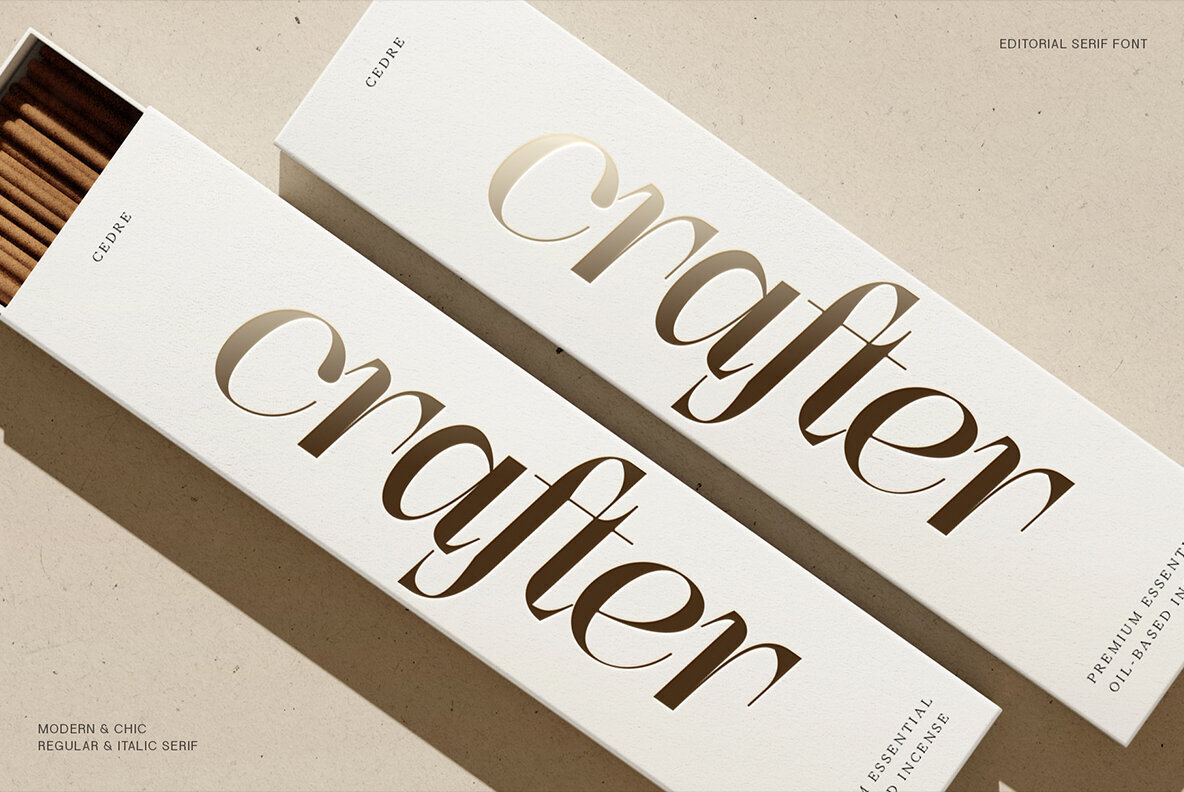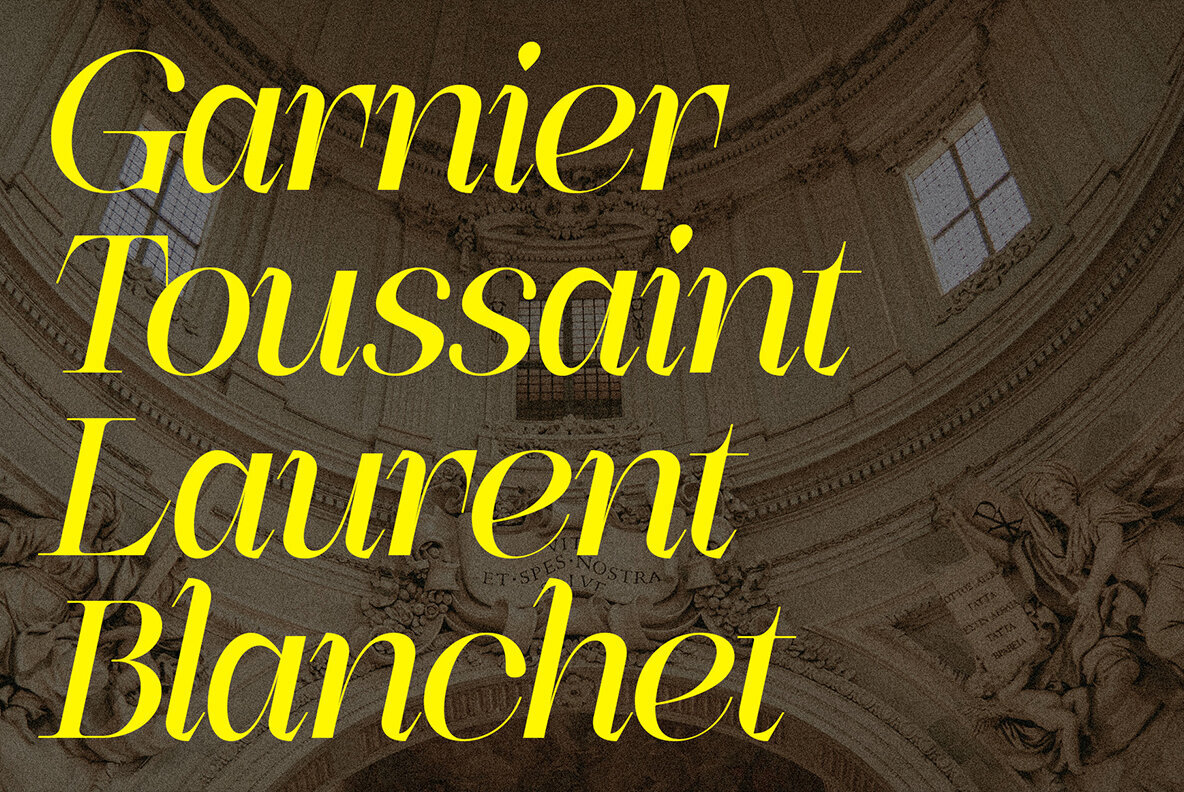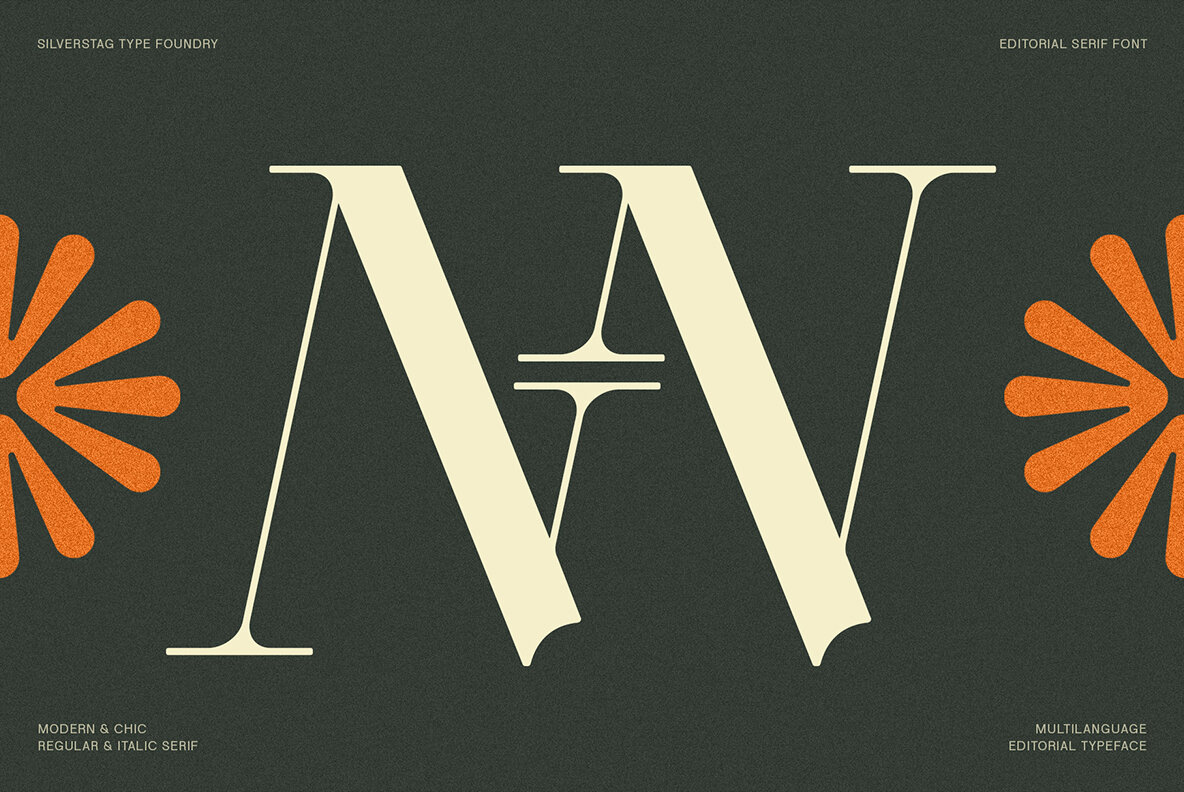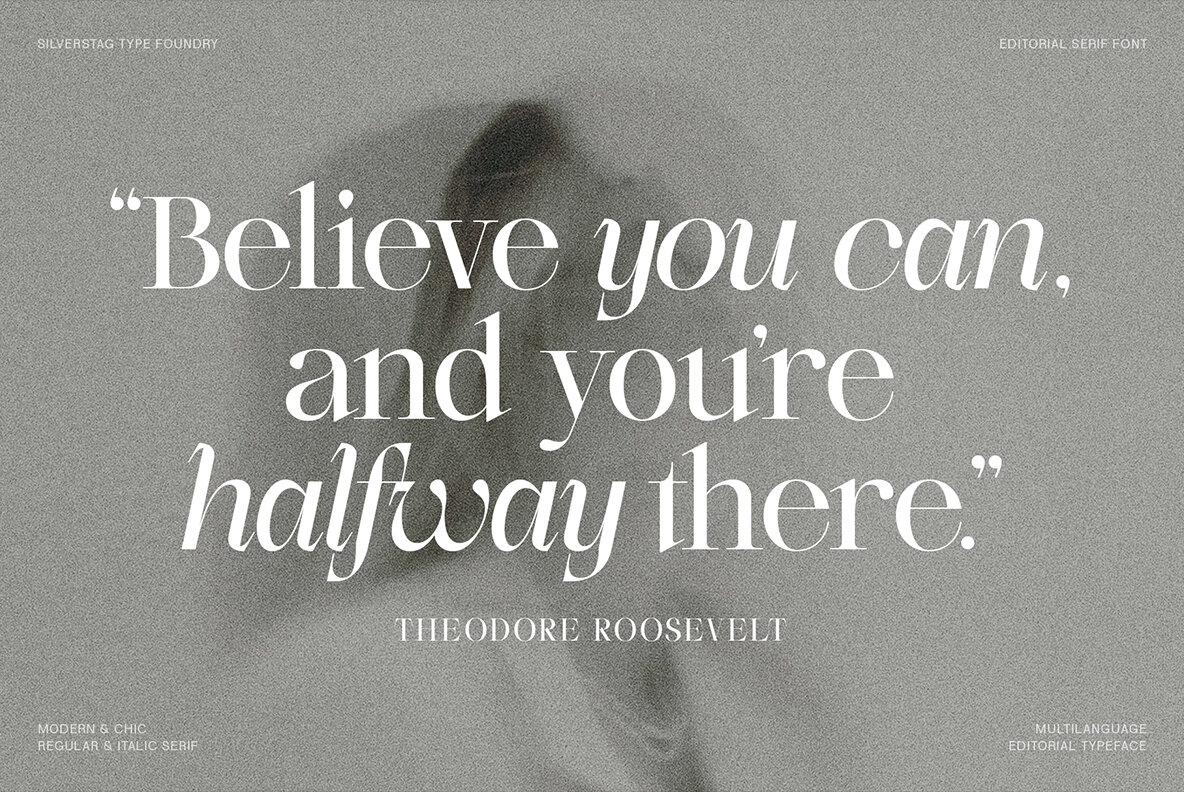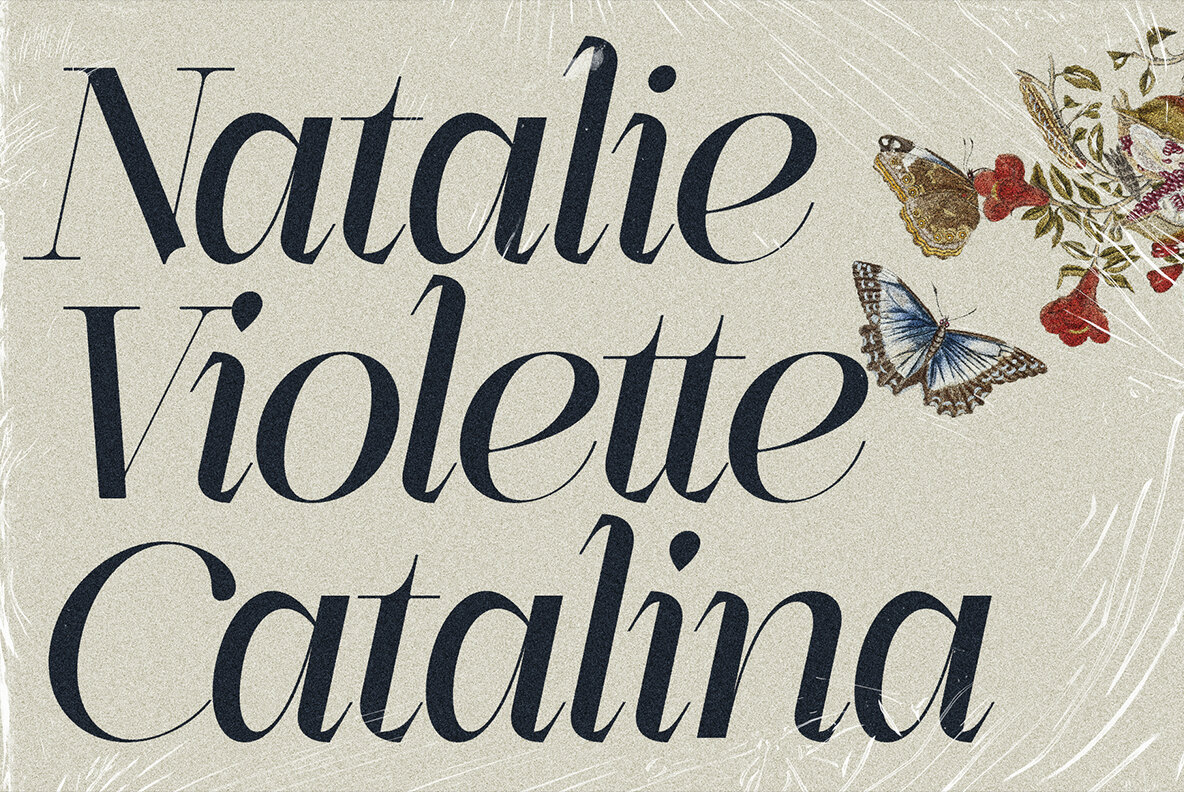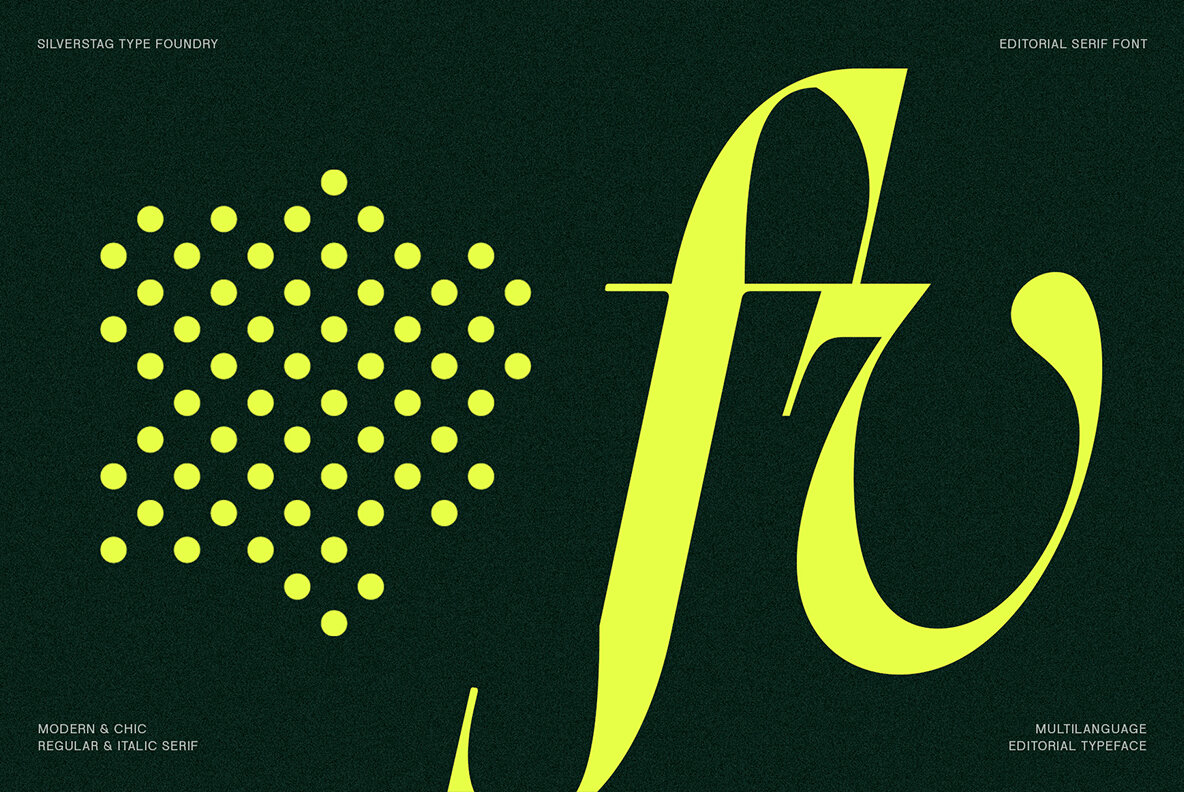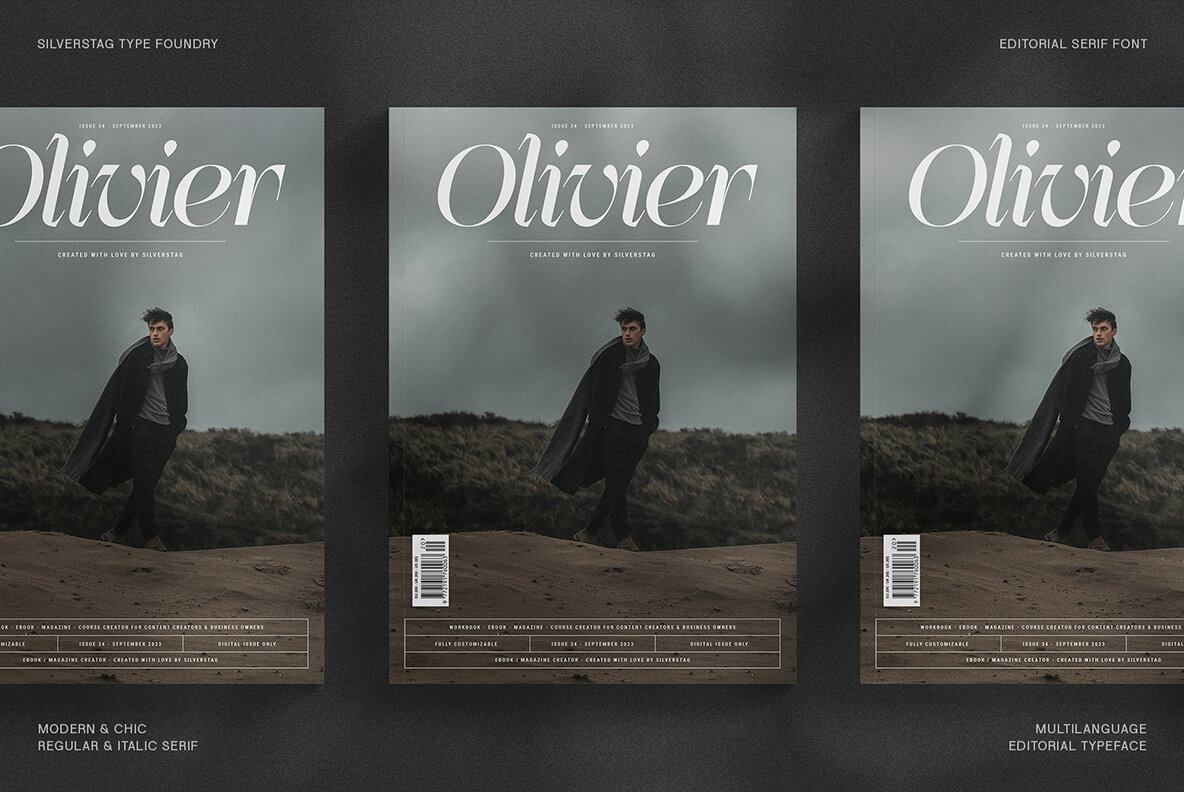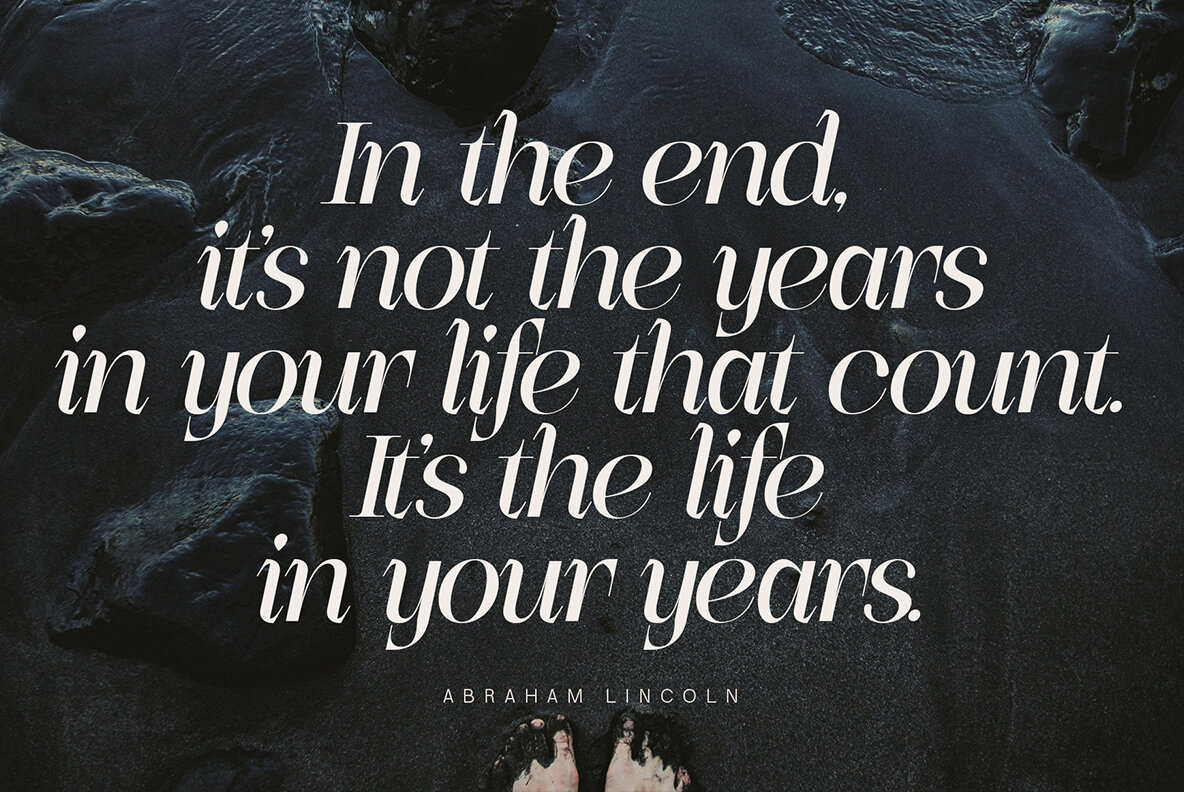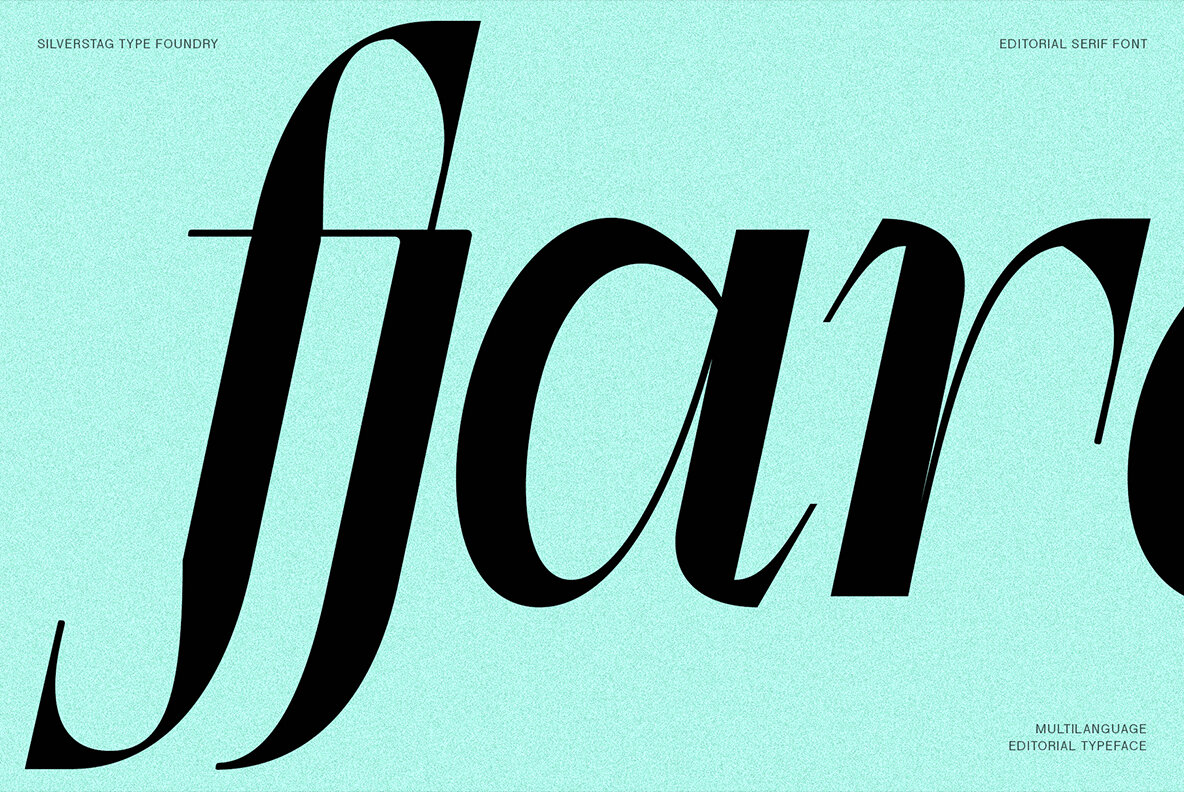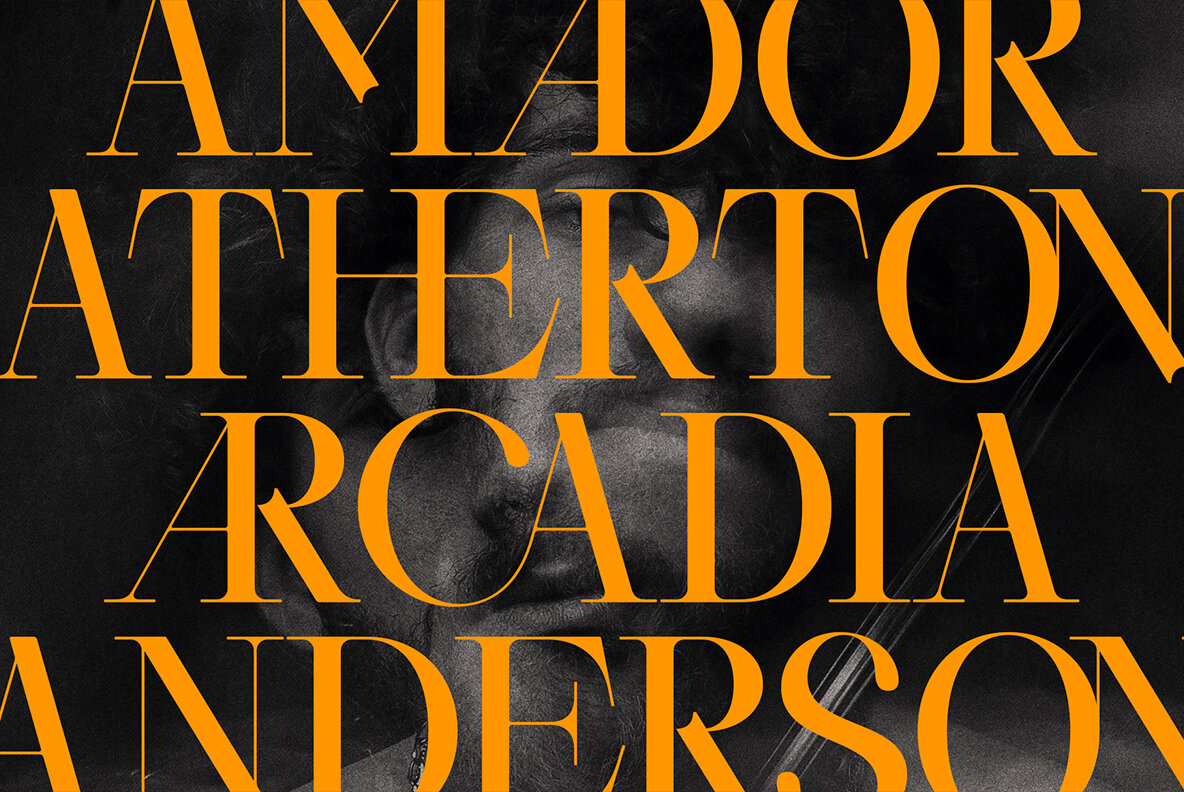
Finality Font
Introducing Finality: Where Timeless Elegance Meets Modern Expression Finality is an editorial display serif that transcends the ordinary. It's a font that speaks volumes with its striking contrast between thin and thick strokes, gracefully rounded serifs, and a captivating blend of classic and contemporary aesthetics. With support for over 90 languages and an extensive library of over 65 thoughtfully crafted ligatures, Finality is as versatile as it is beautiful. Whether you're crafting headlines that demand attention, designing elegant invitations, or laying out a captivating editorial spread, Finality provides the perfect balance of beauty and functionality. Choose from the classic regular style for a polished, timeless aesthetic, perfect for projects that require a touch of sophistication. Or, embrace the expressive italic, which features a unique combination of sharp and rounded lines, adding a touch of dynamism and personality to your designs. Finality is more than just a font; it's a tool for self-expression. It's the perfect choice for designers, writers, and creatives who seek to make a lasting impression with their words. Whether you're working on a personal project or a high-profile campaign, Finality will elevate your work to new heights of elegance and impact.